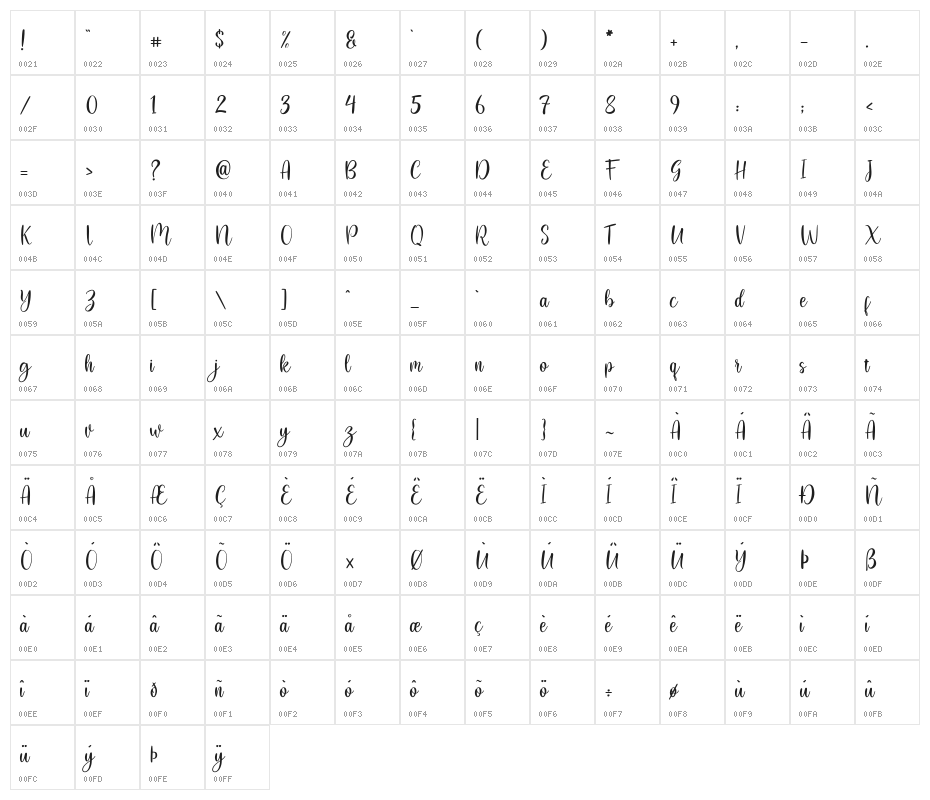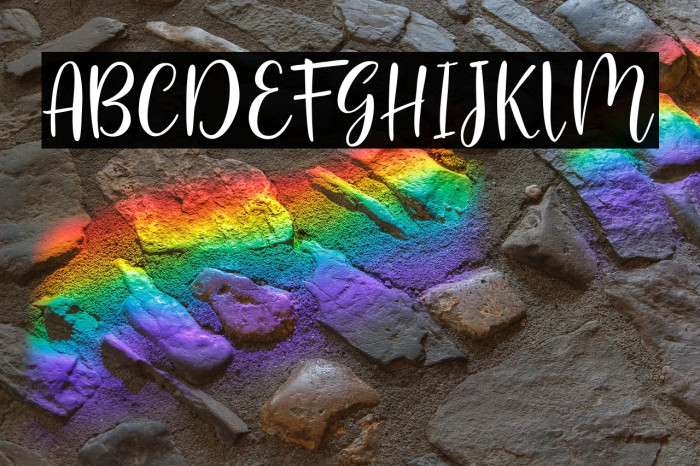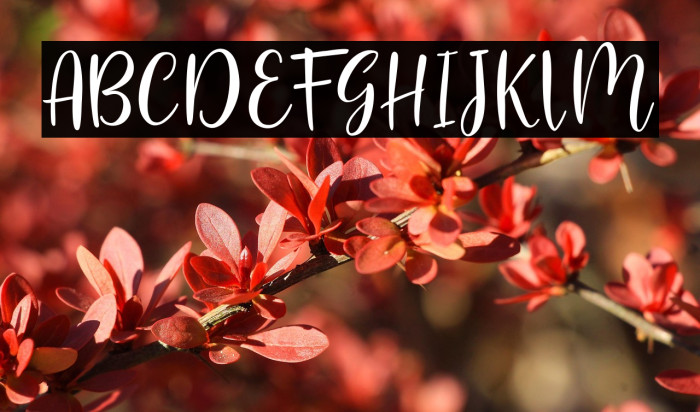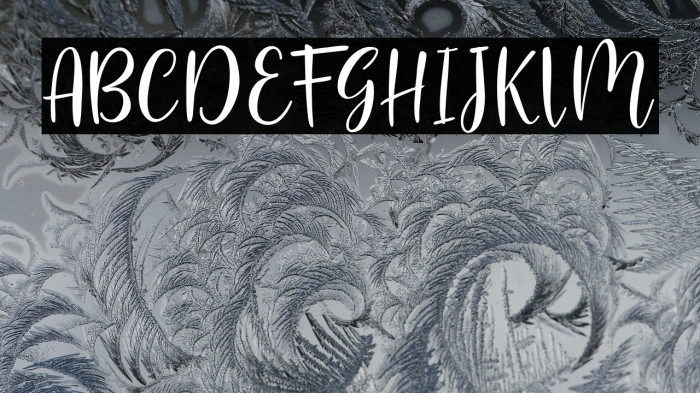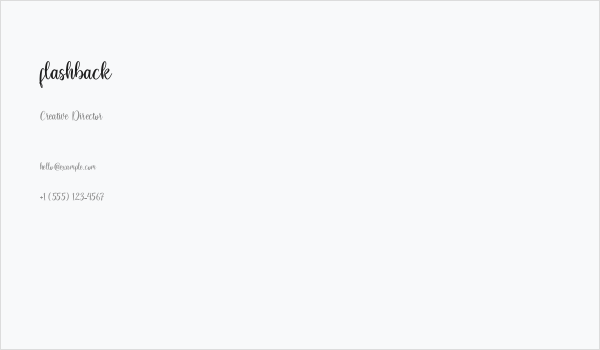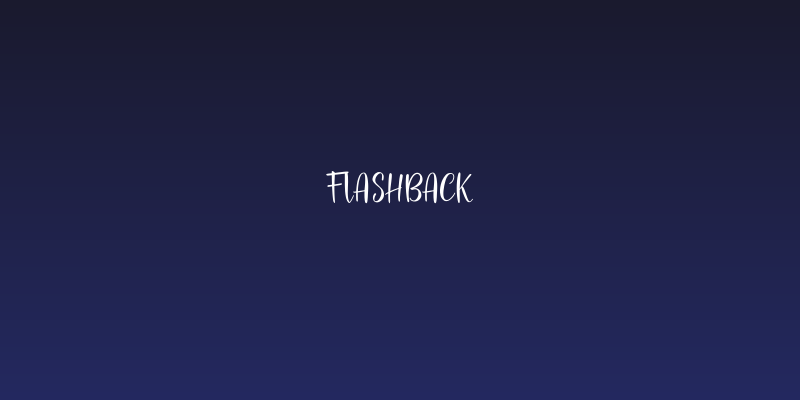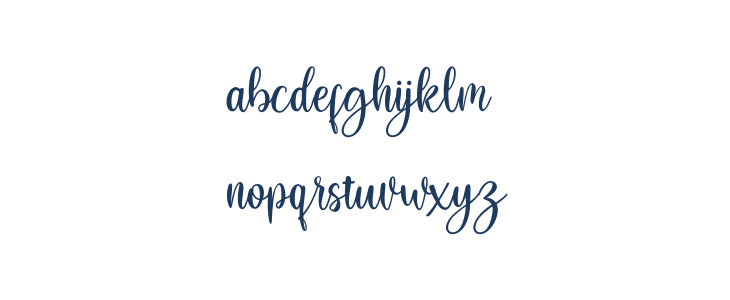
flashback Font
flashback Description
This font features a playful and flowing script style, characterized by its elegant curves and smooth transitions between letters. The uppercase letters are bold and slightly condensed, giving a strong presence, while the lowercase letters maintain a consistent flow with a more delicate touch. The numerals are clear and easy to read, matching the overall style of the alphabet. Special characters are well-integrated, maintaining the font's cohesive look. This script font exudes a sense of elegance and creativity, making it suitable for various design applications.
| Overall Style | Elegant |
| Use Case | Logos, Invitations, Decorative text |
| Proposed Projects | Ideal for wedding invitations, greeting cards, branding, and logo design. |